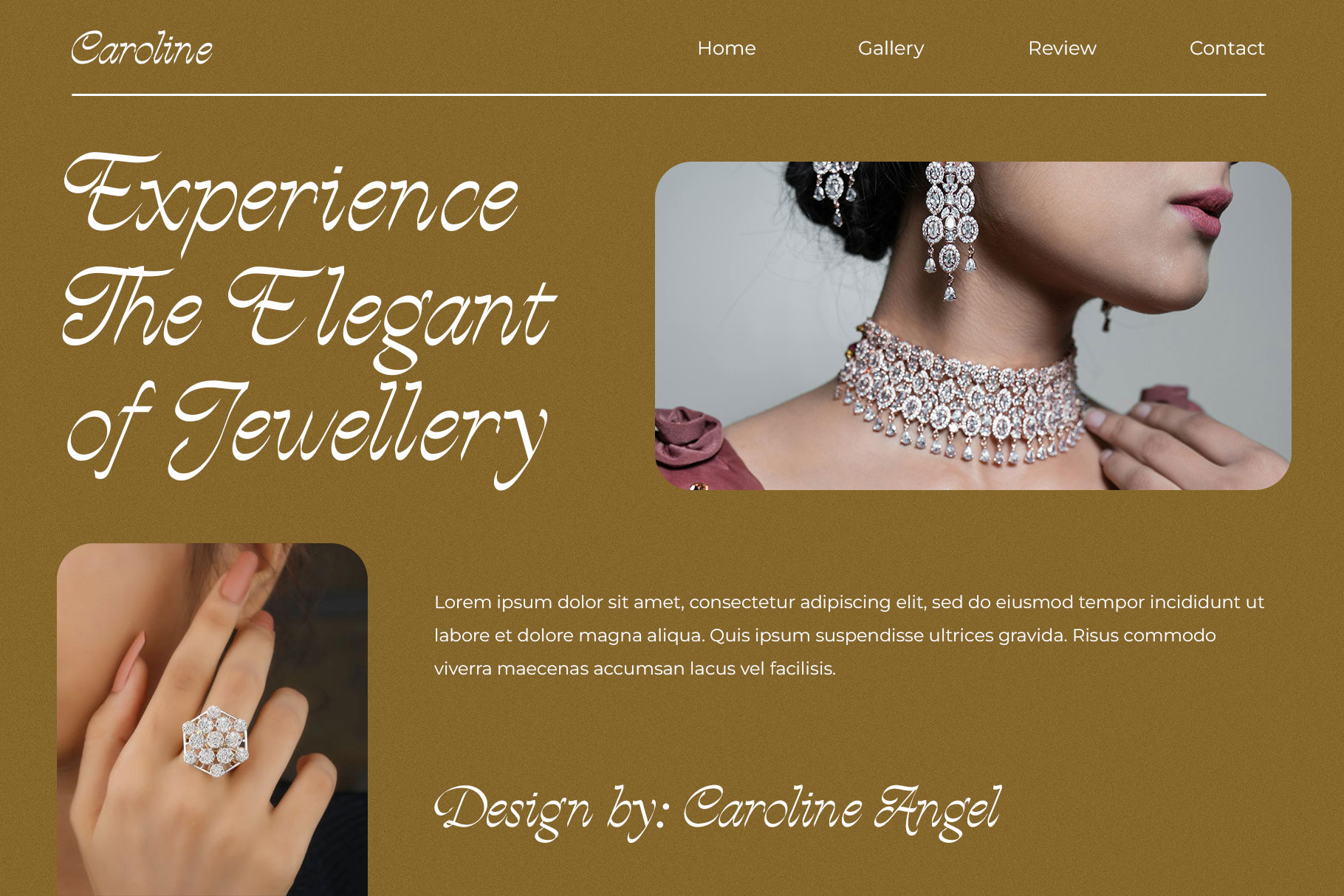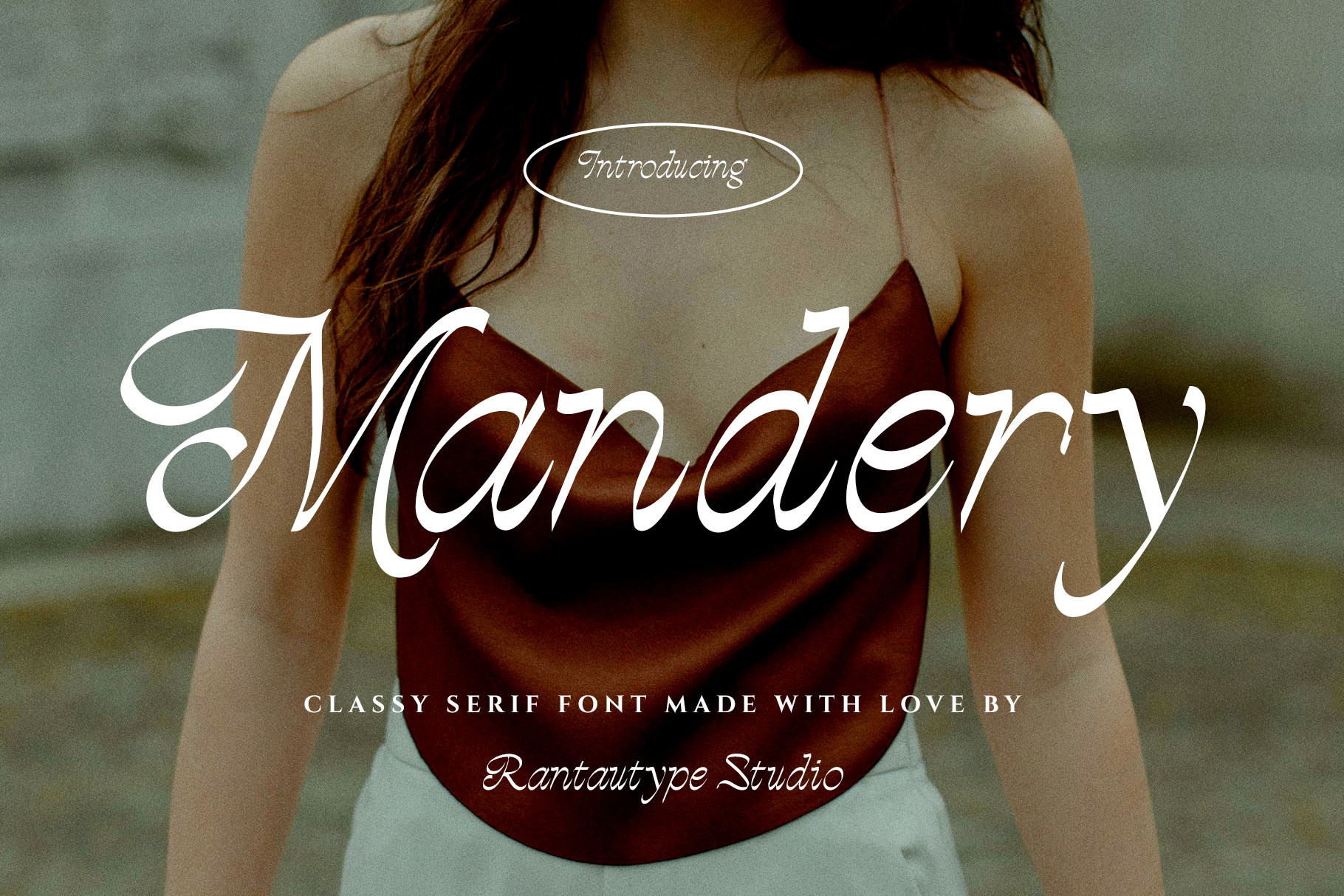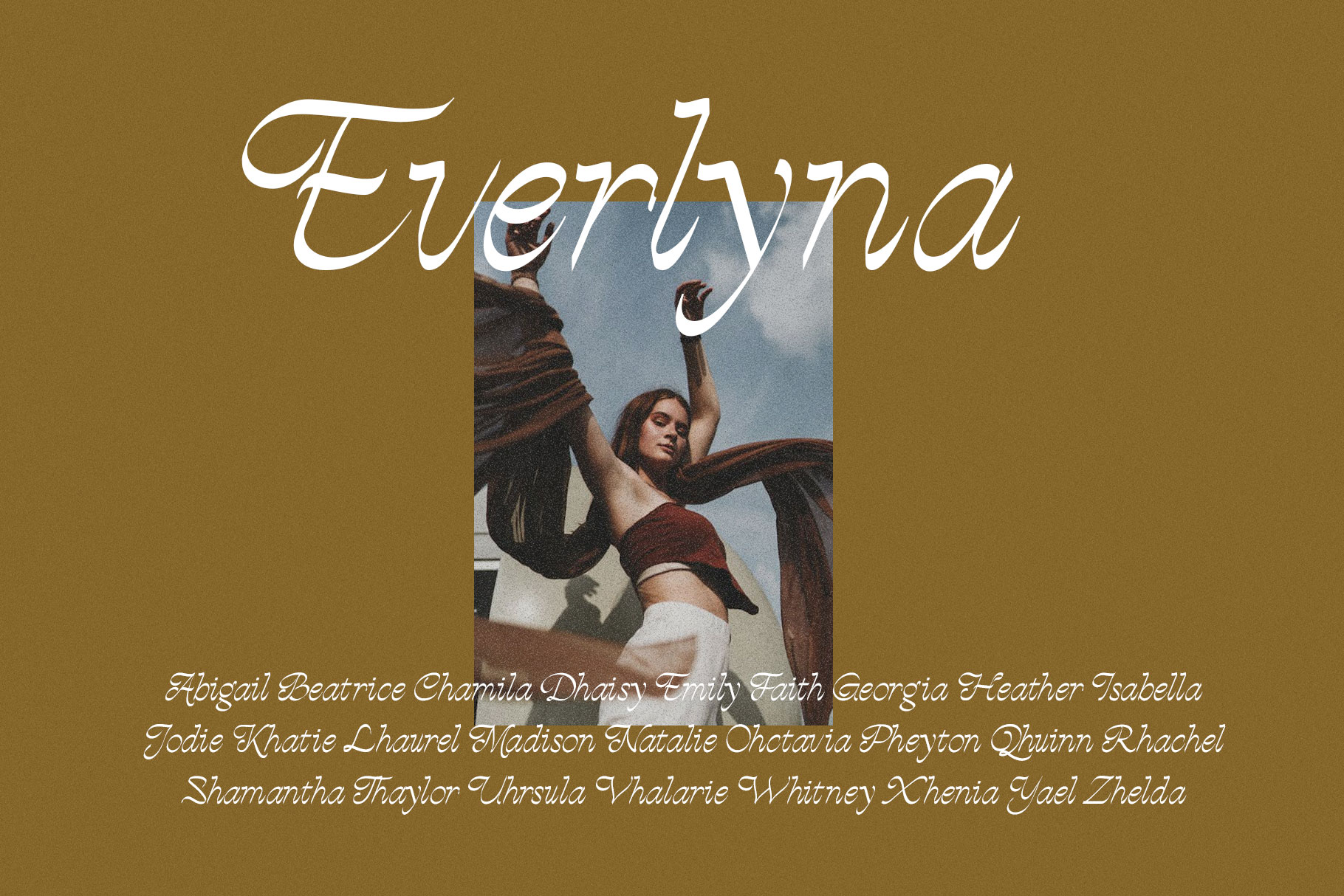
Mandery Classy Serif Font
Mandery is stylish font blend script and serif with elegant sense. Mandery bring memoriable shape to make your design project more stand out! Mandery is a beautiful choice for any creative endeavor, creating elegant, modern, chic, lifestyle design such as logotype, title, cover, branding, invitations, wedding designs, display and magazine, social media posts, advertisements, printed quotes, product packaging, corporate brand, product designs, labels, photography, watermarks, special events and any other project with elegant touch.